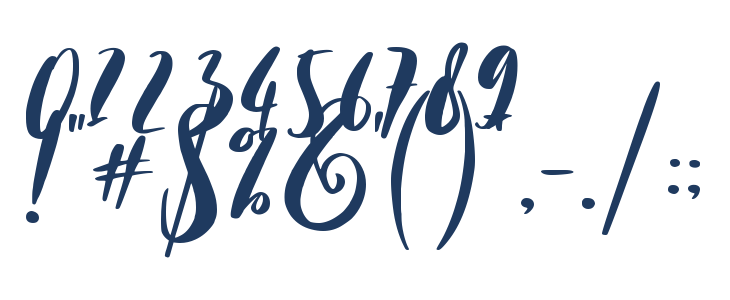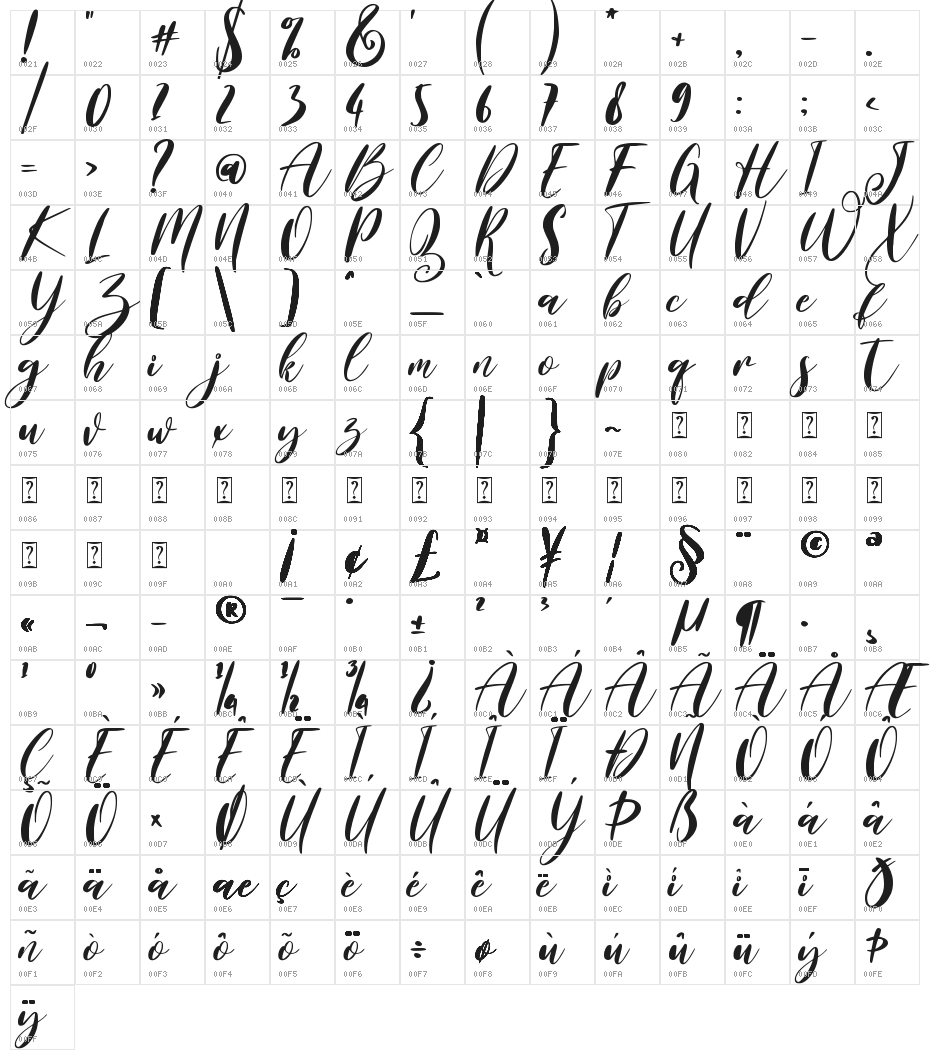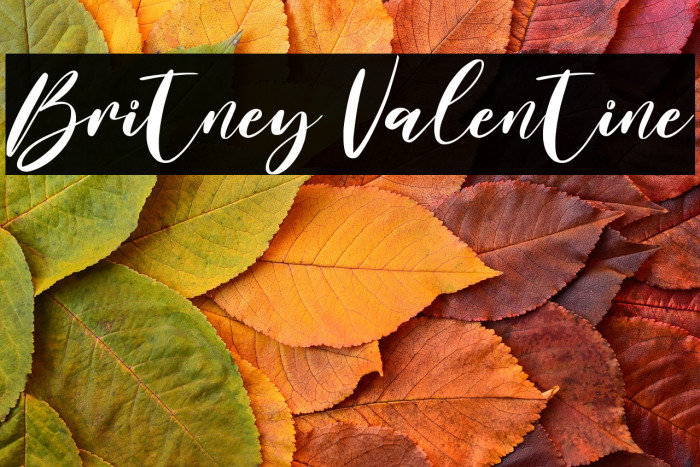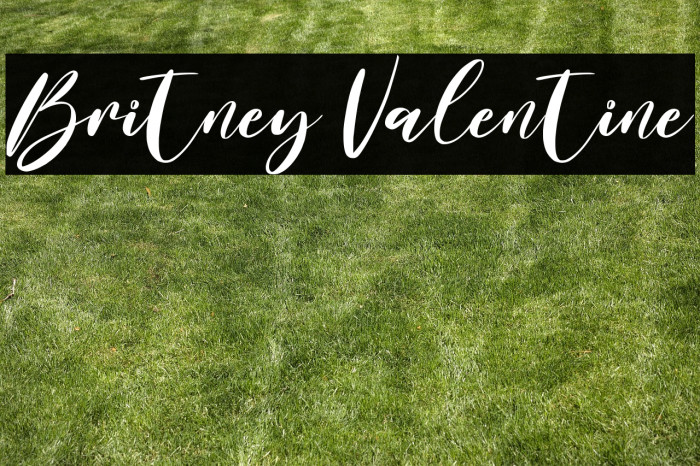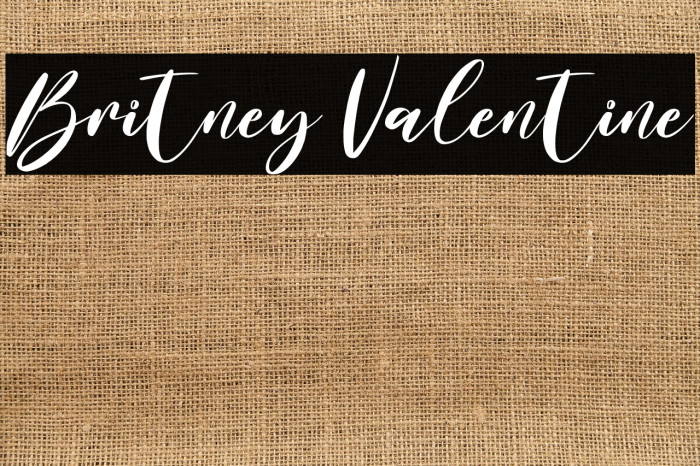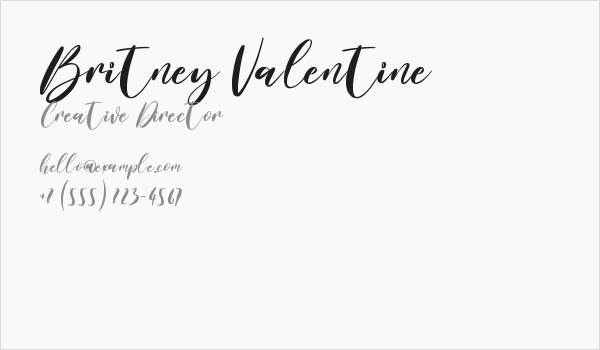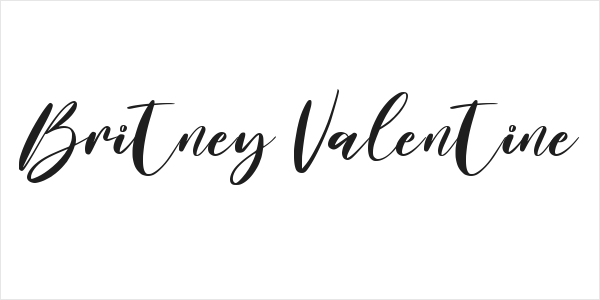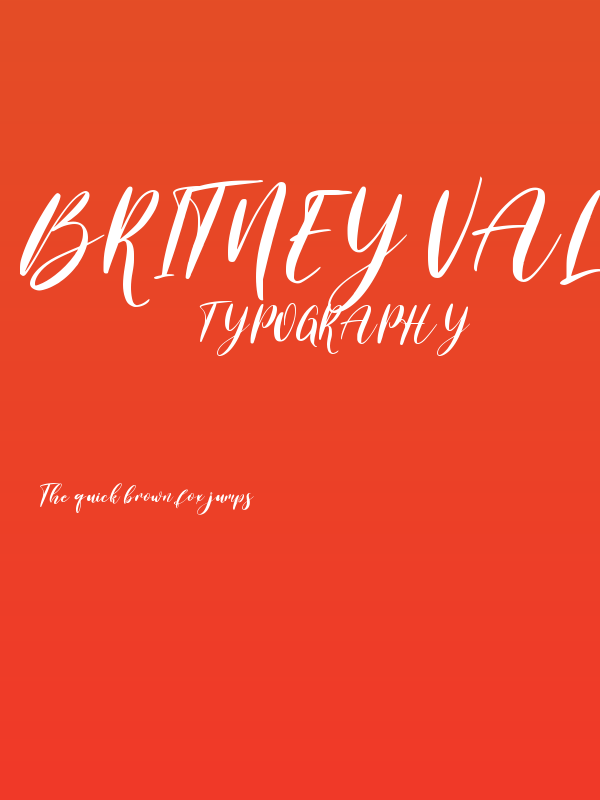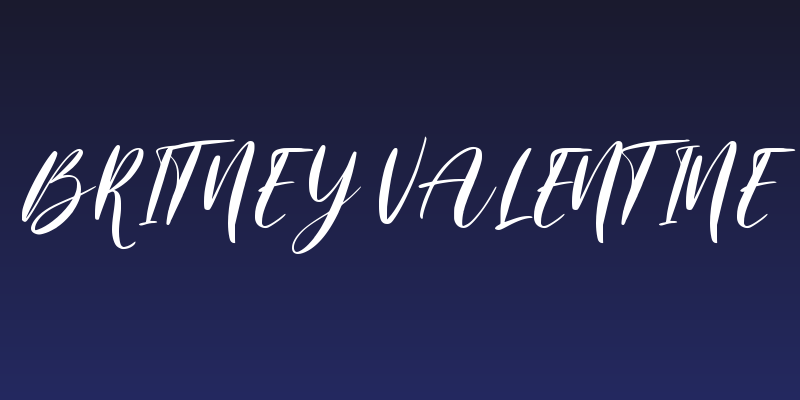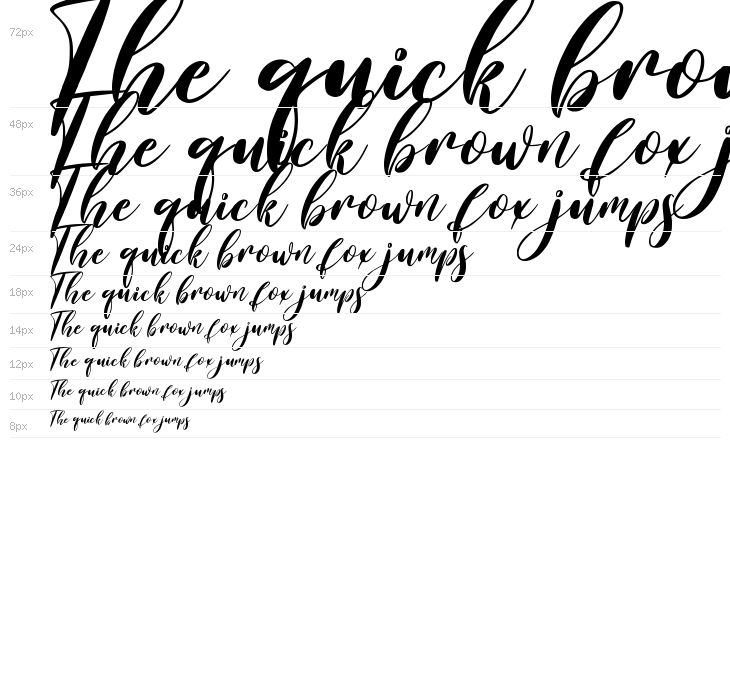
Britney Valentine Font
Britney Valentine Description
This font exudes a lively and expressive style, characterized by its fluid, cursive script that mimics the elegance of hand-drawn calligraphy. The letters are interconnected, with sweeping ascenders and descenders that add a dynamic flow to the text. The strokes vary in thickness, providing a medium contrast that enhances readability while maintaining an artistic flair. The uppercase letters are bold and prominent, while the lowercase letters maintain a consistent rhythm. Numbers and special characters are designed with the same attention to detail, ensuring a cohesive look across all elements.